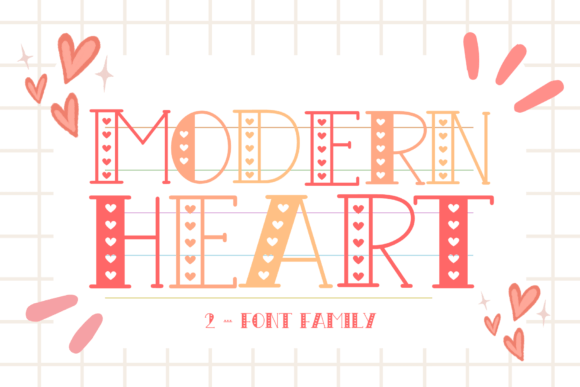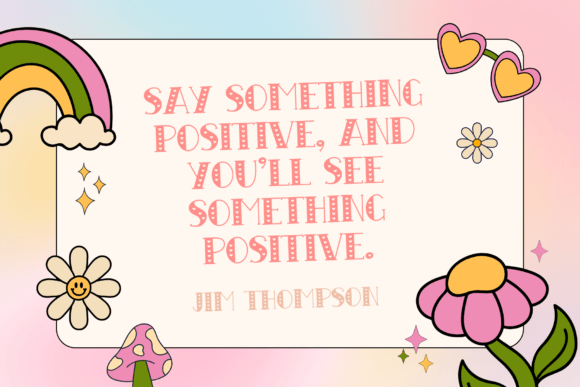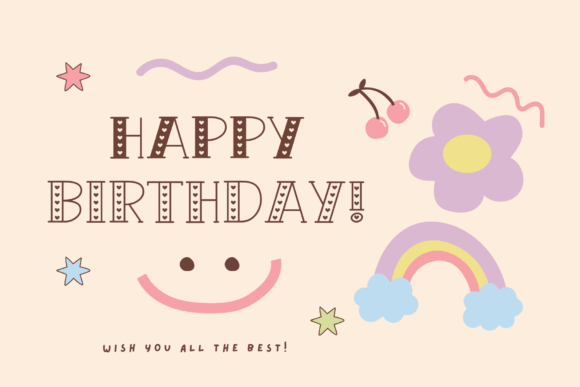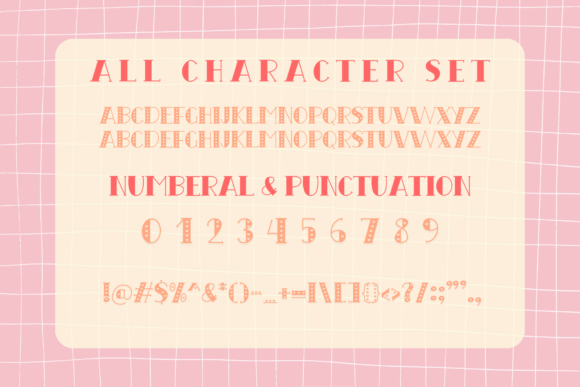
Modern Heart Font
Modern Heart is a Valentine’s Day decorative font. It embodies playfulness and authenticity and is the perfect choice for all your favorite projects, or even for blog posts, logos, branding, ads, invitations, greeting cards, planners, photo albums, decorations, and much more. Add it to any of your designs, and enjoy the results!